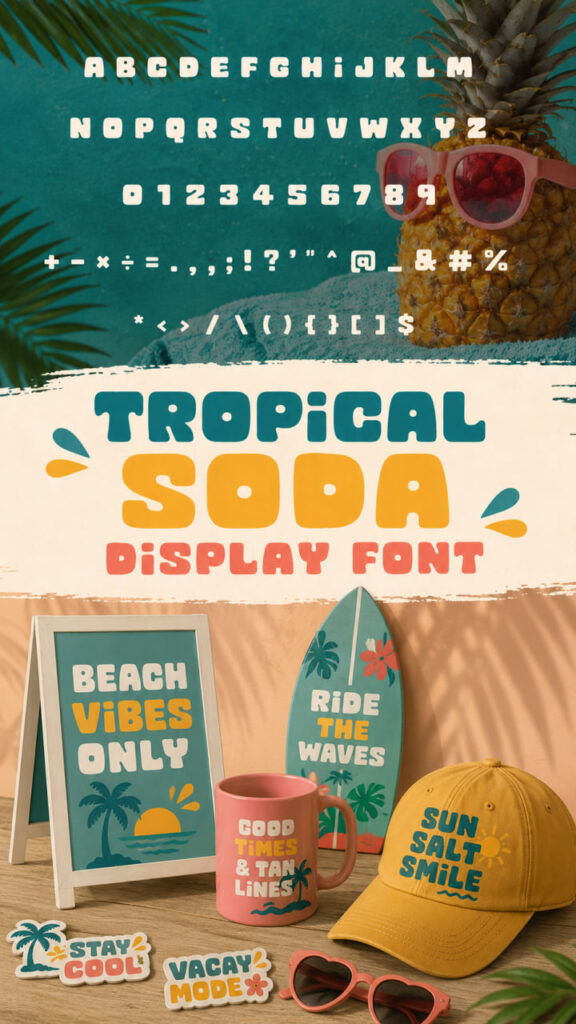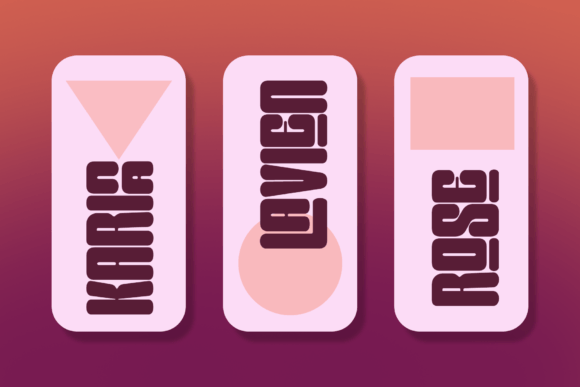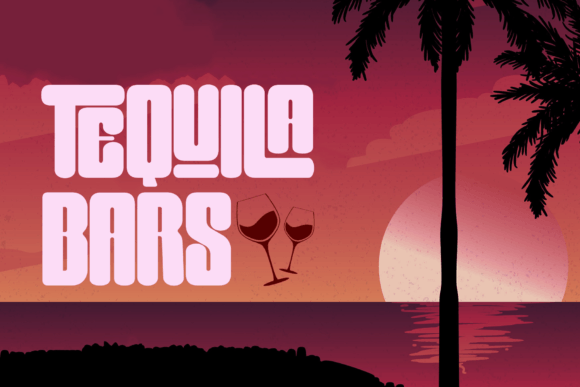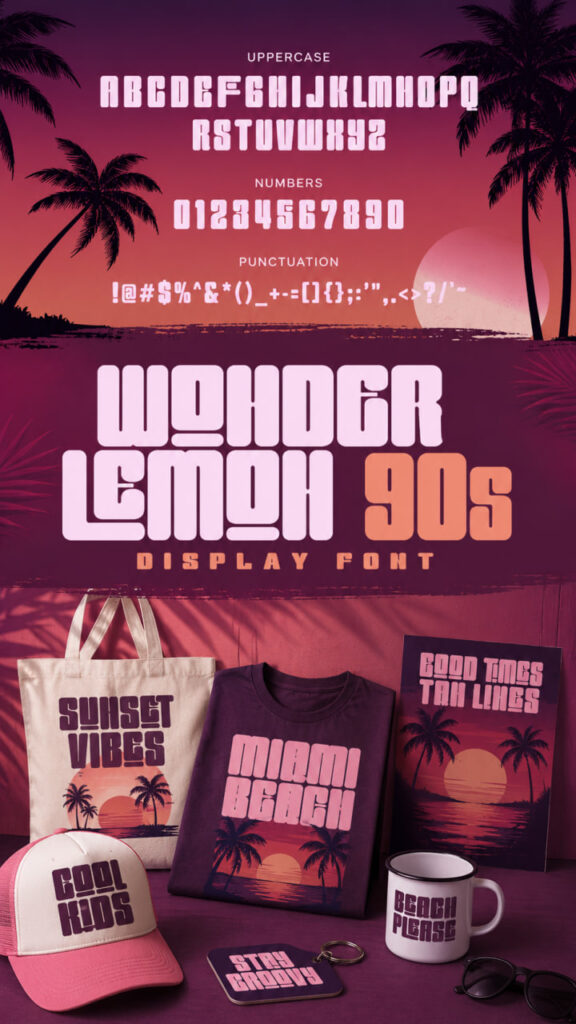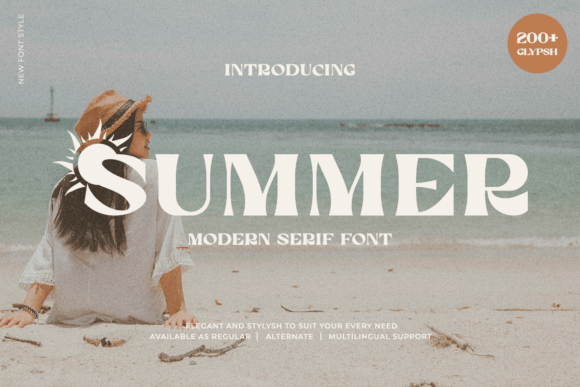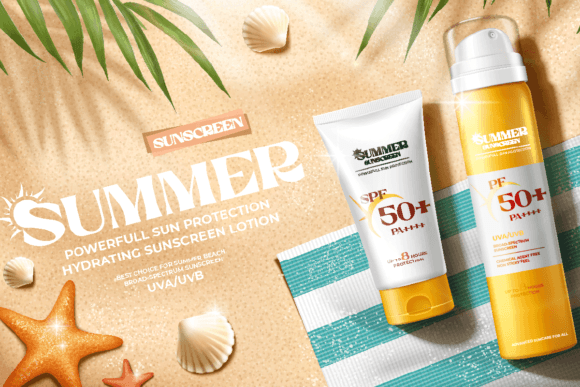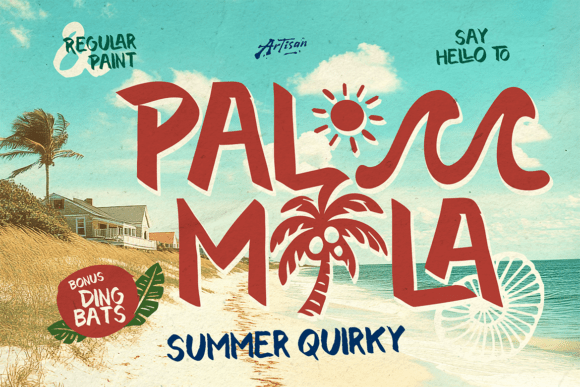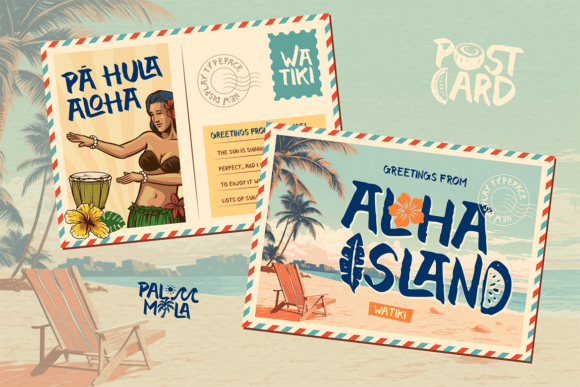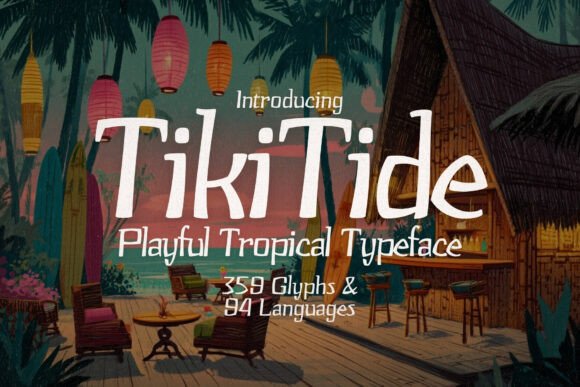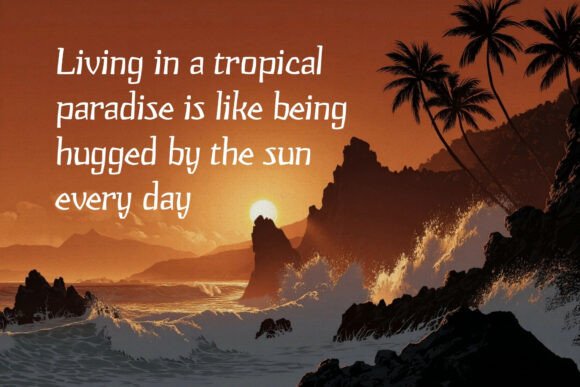
11 gorgeous Summer Display Fonts: Sunkissed Style
If you are looking to infuse your seasonal designs with the ultimate warm-weather aesthetic, our handpicked collection of Summer Display Fonts is here to completely transform your creative toolkit. We have curated exactly 11 gorgeous options that will help you craft a standout sunkissed style for your titles, packaging, and branding layouts.
Summer Vibes Font: A Radiant Display Fonts Pick
Sunkissed Style: 11 Gorgeous Summer Display Fonts
Breathe a splash of golden sunshine into your layouts with Summer Vibes, an incredibly unique typeface designed to capture the ultimate seasonal warmth. Masterfully designed to become a true favorite in your creative toolkit, this standout selection has the potential to bring each of your creative ideas to the absolute highest level.
It serves as a wonderfully refreshing and bold choice among modern Display Fonts, making it perfect for custom beachwear, bright party invitations, tropical event packaging, and lively social media graphics. Bring the carefree essence of summer straight to your canvas and watch your projects instantly radiate positive, energetic vibes!
Tropical Soda Font: A Bubbly retro Display Fonts Pick
Dive headfirst into a world of pure retro fun with Tropical Soda, an exceptionally bold and playful bubble typeface designed to bring an instant splash of vacation energy to your canvas. Drawing heavy inspiration from sunny beach holidays, retro aesthetics, and Y2K trends, this font features chunky, rounded letters that instantly make any layout feel vibrant and energetic.
It serves as a highly engaging and lively option for your curated collection of Display Fonts, infusing a cheerful personality into any design. Whether you are crafting eye-catching summer branding, custom t-shirts, tropical event packaging, or colorful social media graphics, Tropical Soda is the perfect tool to make your creations feel incredibly fun, youthful, and full of life!
Wonder Lemon Font: A Punchy 90s Display Fonts Pick
Transport your audience straight back to the sun-soaked 1990s with Wonder Lemon, an eye-catching condensed sans-serif designed to deliver maximum visual impact with a clean, modern edge. Engineered specifically to help you optimize canvas space on your contemporary artworks, this high-impact typeface is the ultimate solution for heavy titles that demand to be noticed.
It stands out as a remarkably confident choice among modern Display Fonts, shining brightest when used for bold highlights and powerful editorial layouts. Inspired by carefree, retro summer vibes, Wonder Lemon injects a dose of bold, nostalgic energy into your typography, making it the perfect tool for stylish branding, custom posters, and high-impact digital designs.
Summer Font: A Playful Display Fonts Pick
Radiate pure, sun-drenched joy with Summer, a vibrant and playful typeface designed to capture the ultimate essence of carefree, sunny days. Engineered to bring an instant burst of energy to your canvas, this lively selection is the perfect tool to make your seasonal projects feel incredibly bright and spirited.
It stands out as a highly engaging option in your collection of Display Fonts, making it ideal for tropical beach party invitations, warm holiday cards, and breezy social media graphics. To make your design process even sweeter, Summer is fully PUA encoded, giving you effortless access to all of its cute glyphs and decorative swashes so you can customize your summer layouts with total ease!
Palmila Font: A Tropical Display Fonts Pick
Unpack the ultimate vacation vibe straight onto your screen with Palmila, a playful typeface that instantly brings a sunny coastal energy to your designs. Crafted with a bold brush style and a quirky, hand-painted feel, this layout essential is masterfully engineered to stand out with genuine warmth and fun. The coolest part? Several characters magically transform into tropical-inspired shapes like coconuts, palm trees, and sun elements, giving your typography an automatic summer twist without requiring any extra graphics!
It shines brilliantly as an incredibly lively choice in your curated collection of Display Fonts, making it perfect for relaxed branding projects, beach event posters, and custom t-shirt designs. Whether you are styling colorful social media headers, fun packaging, or playful kids’ merchandise, Palmila ensures your text radiates a cheerful, carefree mood that keeps everyone dreaming of the seaside.
Tiki Tide Regular Font: A Tropical Display Fonts Pick
Escape to a tropical paradise with Tiki Tide Regular, a vibrant Hawaiian-inspired typeface that radiates laid-back island vibes. Handcrafted with a natural, organic flow, this energetic selection beautifully captures the sun-kissed charm of swaying palm trees, sandy beaches, and refreshing beachside cocktails.
It shines as a highly expressive addition to your curated collection of Display Fonts, making it perfect for custom beach apparel, tropical party invites, surf shop branding, and colorful vacation-themed layouts. Bring the warm aloha spirit straight to your canvas and watch this gorgeous summer favorite instantly transport your audience to a breezy Polynesian escape.